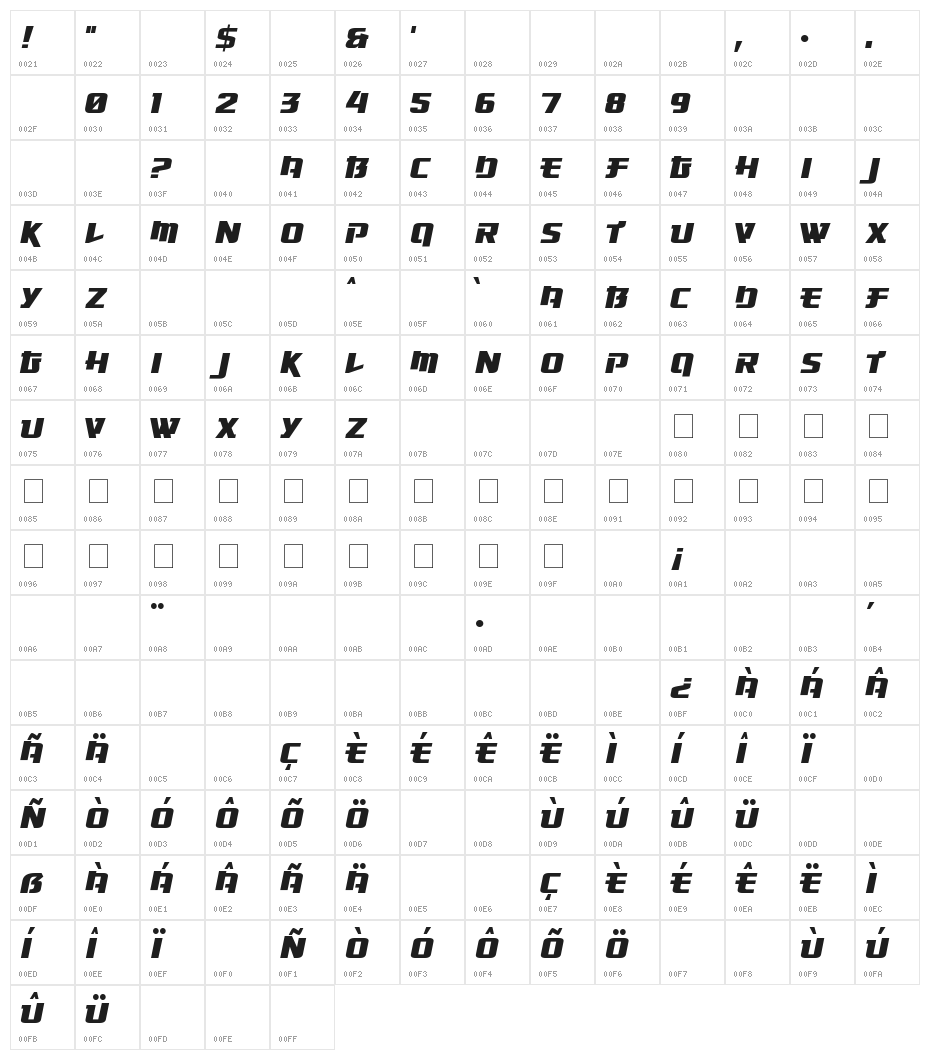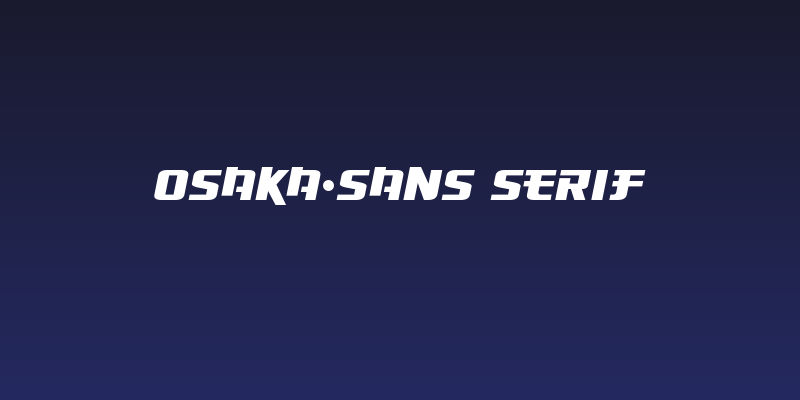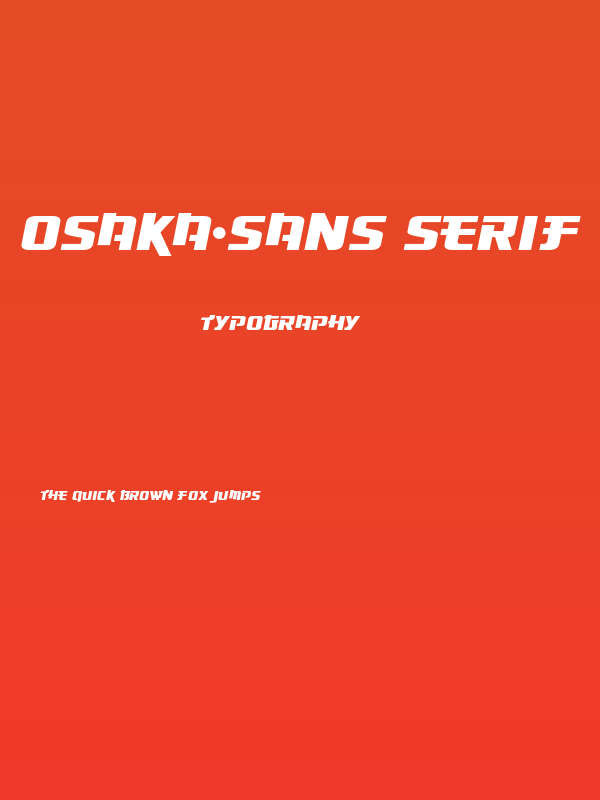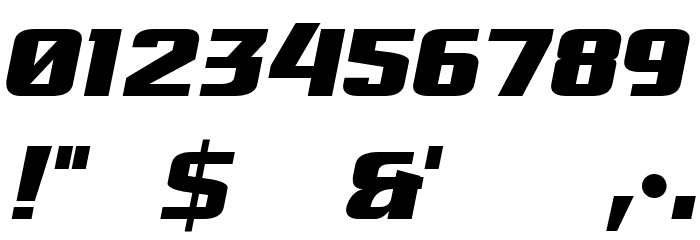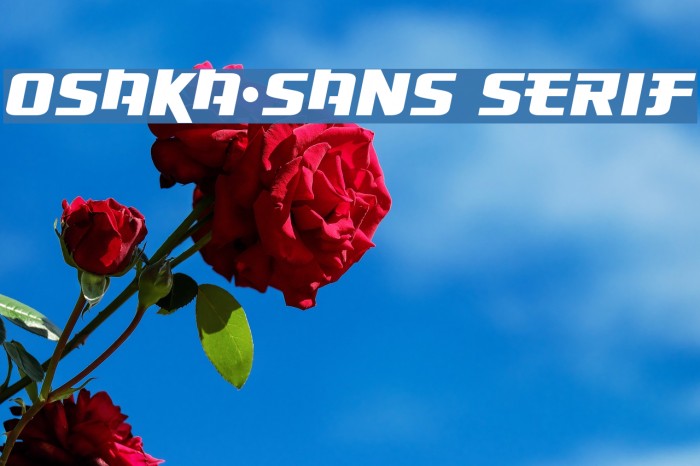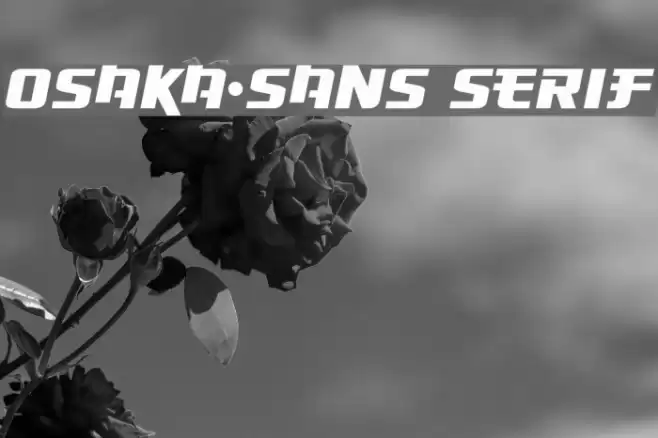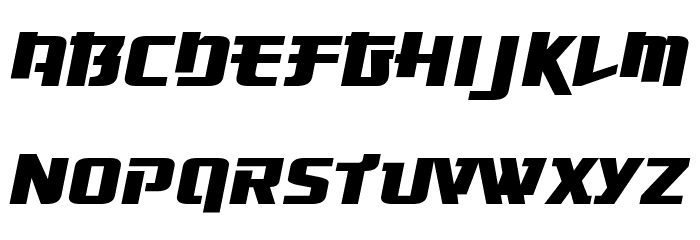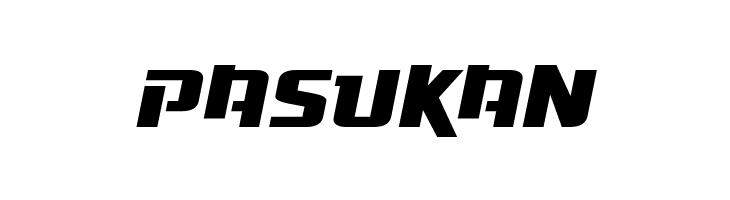
Osaka-Sans Serif Font
Osaka-Sans Serif Description
This font features a bold and dynamic design with a strong geometric influence. The characters are sharply angled, giving a sense of movement and energy. The uppercase letters are particularly striking, with a futuristic and modern aesthetic. The lowercase letters maintain the same boldness, ensuring consistency across the typeface. The numbers and special characters are designed to match the overall style, making them suitable for a variety of uses. The font's distinct style makes it ideal for attention-grabbing headlines and logos, where a strong visual impact is desired.
| Proposed Projects | Ideal for branding, advertising, posters, and any project requiring a bold, modern look. |